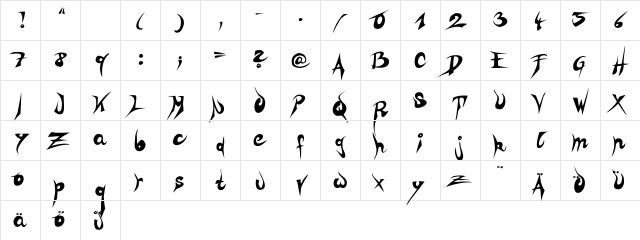
ZOE Graphic Regular Regular
Foundry: Tanja Schulz - ZOE -
Designer: Tanja Schulz - ZOE -
Design Context for ZOE Graphic Regular
ZOE Graphic Regular is a composed and adaptable typeface that performs quietly and consistently across a wide range of design contexts.